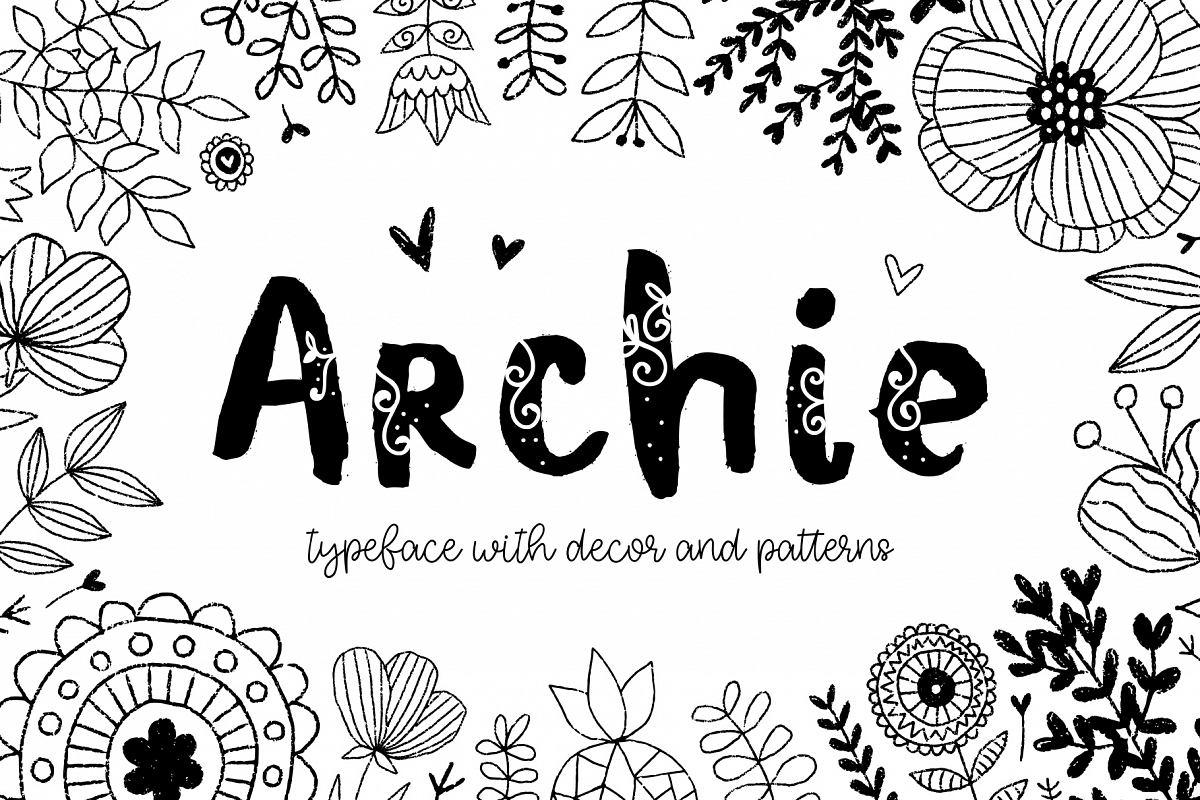
Archie typeface with Clipart
? Archie typeface - handwritten font with decor for your projects! ?
This hand drawn font is perfect for cards, prints, logos, wedding invitations, arrange illustration and decoration. It has upper and lower case letters, numbers, special characters, accents.
I painted this font with watercolor, and then I added the curves on it. I realized that it is necessary to add decorative elements and backgrounds! They perfectly harmonize together!You will receive the fonts: